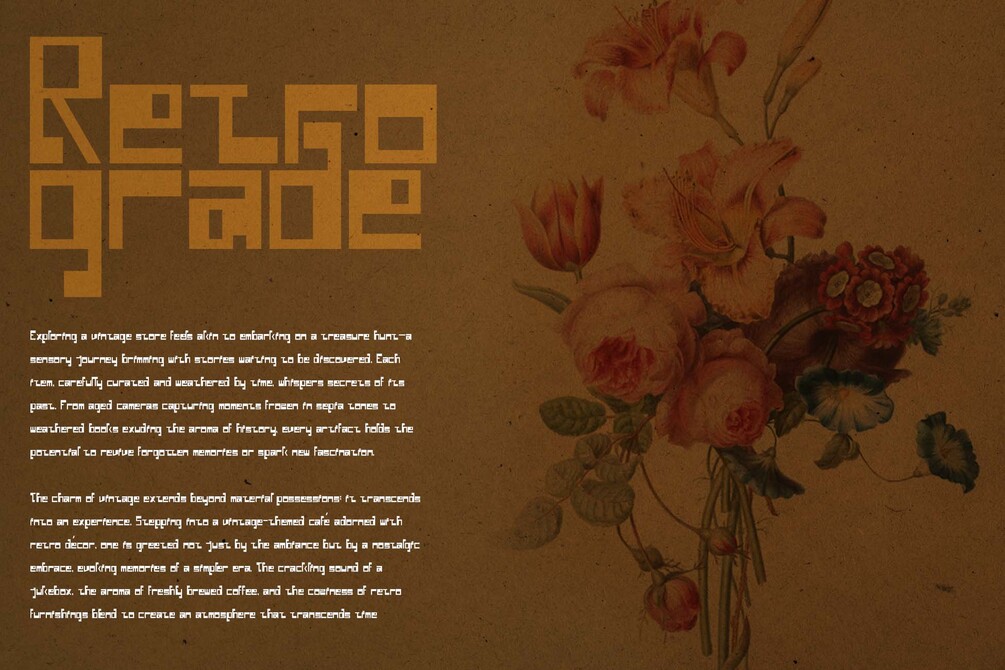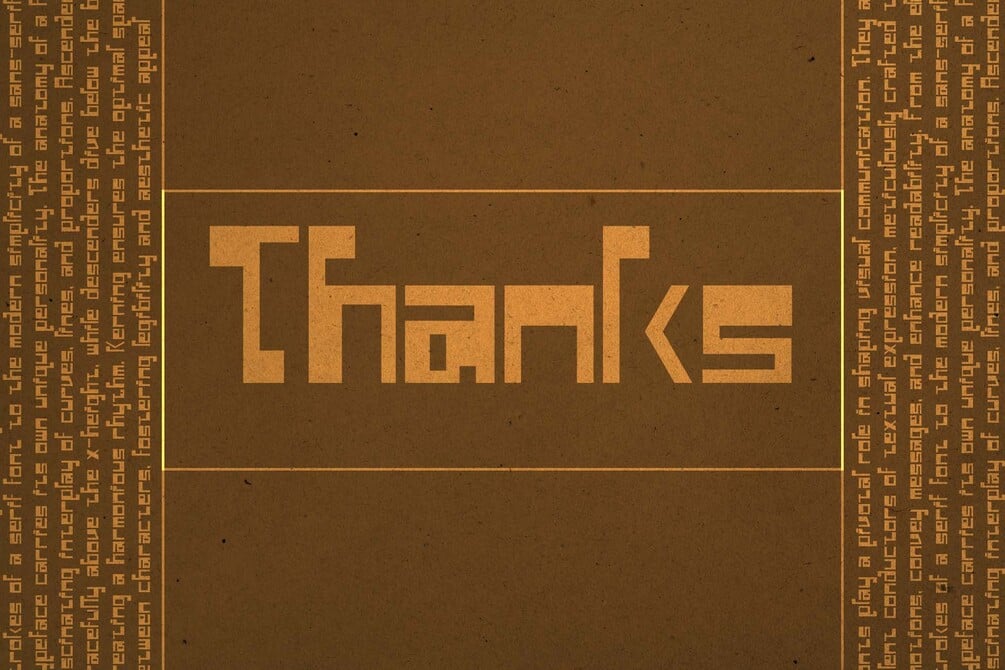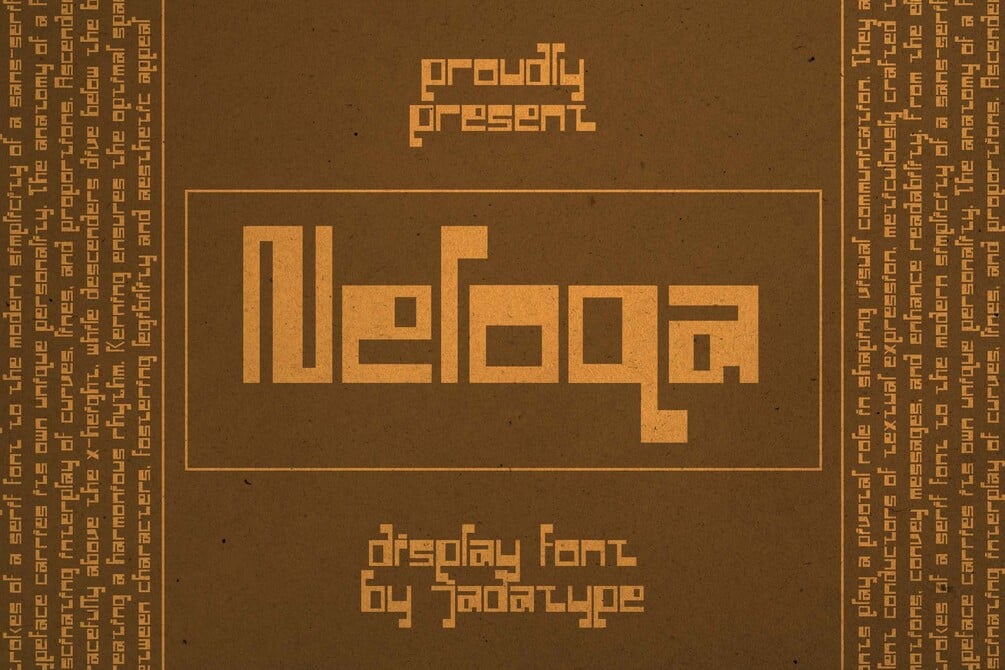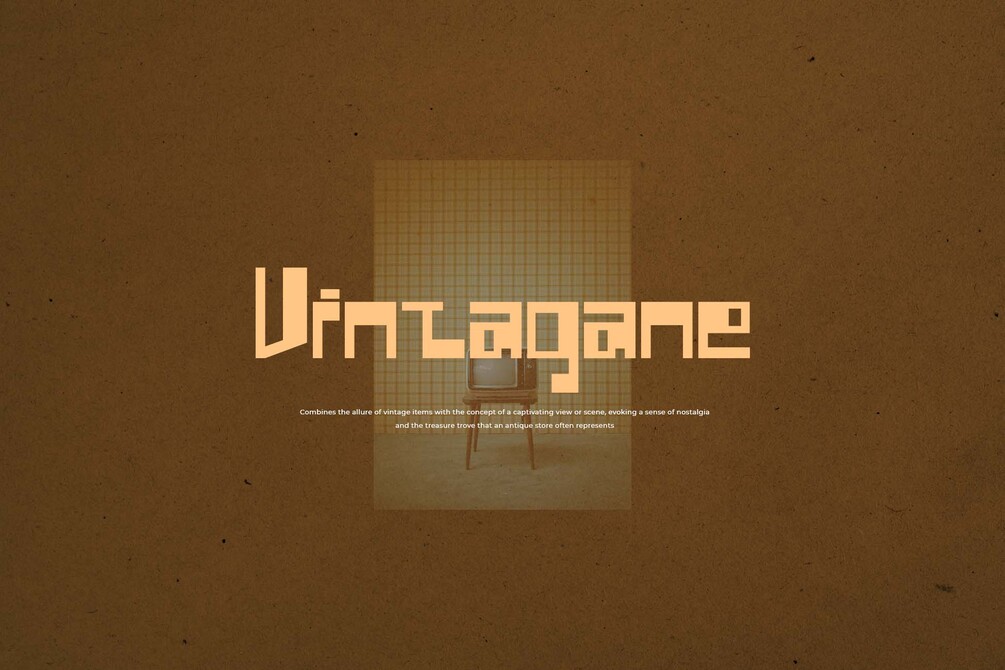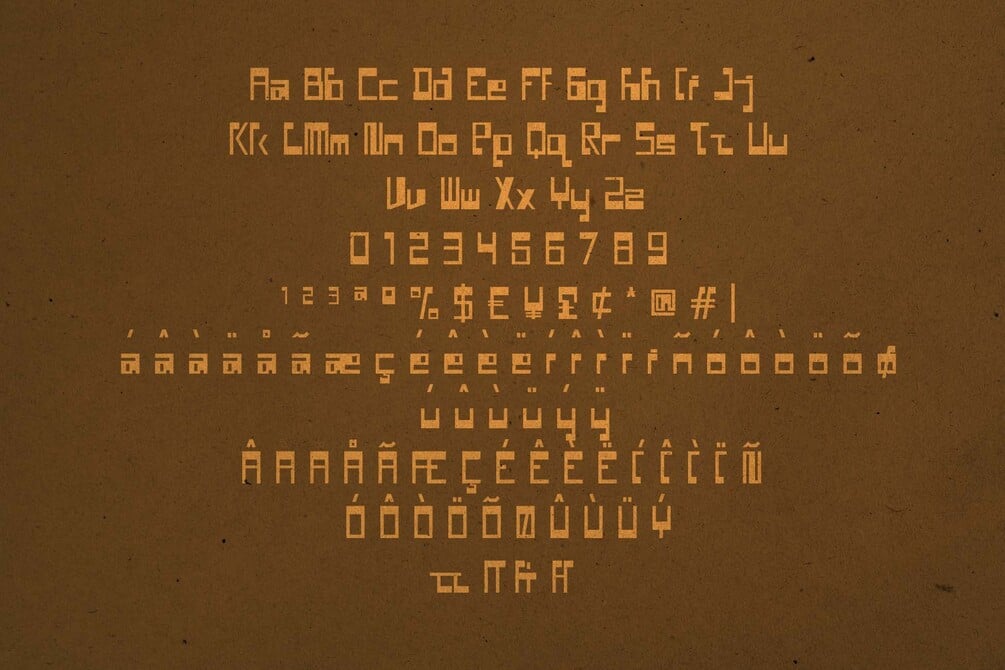
Neloqa Font
Neloqa is a display font that comes with a vintage inscription vibe. suitable for product, branding, social media, notes and so on. contains standard English letters, numbers, punctuation, and several accents that support multilingualism.